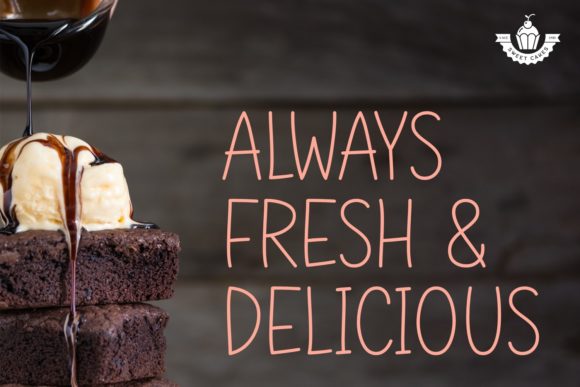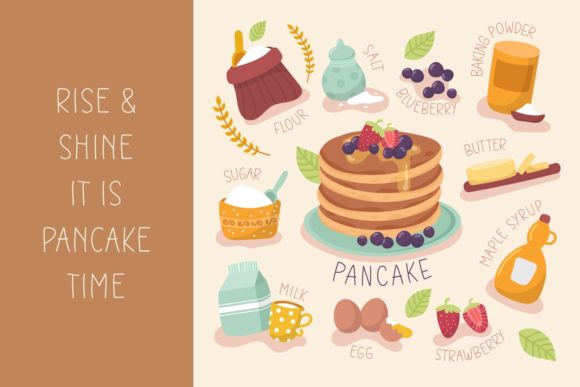
Homemade Brownies Font
db-ku.com - Script & Handwritten -- The Homemade Brownies typeface is as sweet as it sounds. This handwritten font features slim and simple drawn lines that will surely add a personal element to your next card, craft, or print!